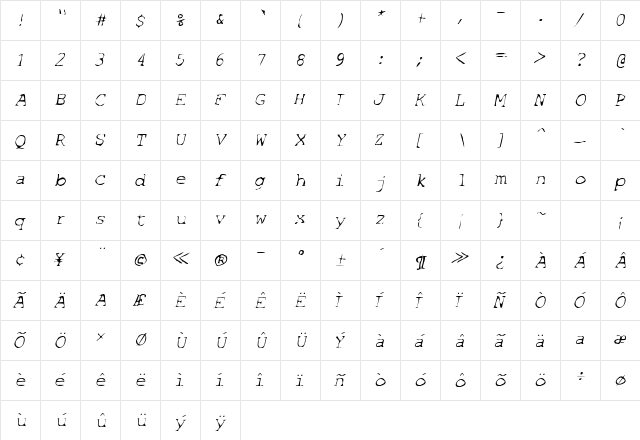
SF Espionage Light Oblique
Design Context for SF Espionage Light Typeface
SF Espionage Light is a composed and adaptable typeface that performs quietly and consistently across a wide range of design contexts. Its italic angle brings a sense of urgency and motion to the letterforms. The delicate stroke weight brings airiness and refinement to layouts.
Pro Tip: Try SF Espionage Light for annotation and caption copy alongside an upright companion — the contrast in angle creates a dynamic but ordered typographic system.